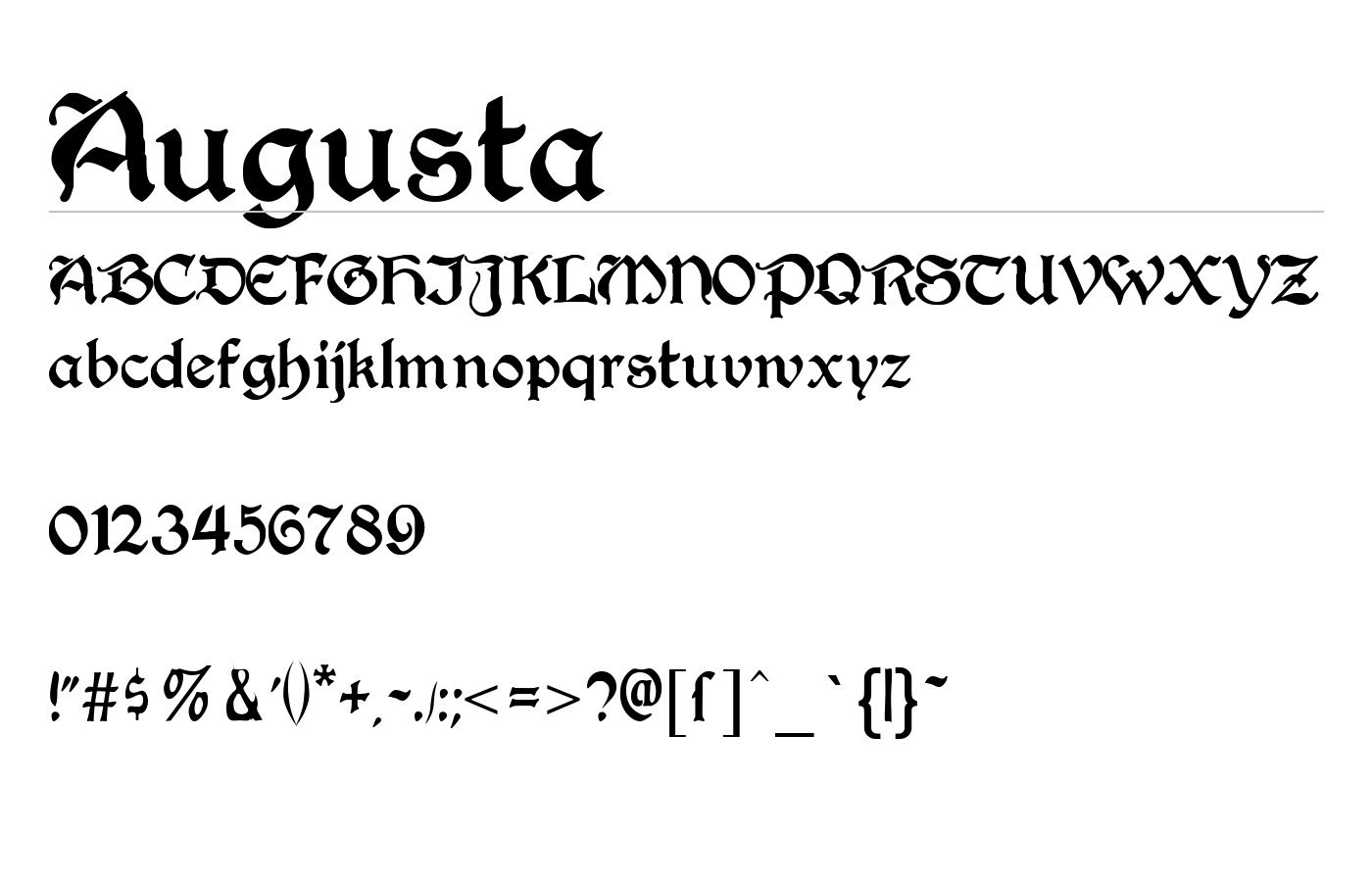
Augusta is a blackletter serif font with strong, bold strokes and sharp, dramatic serifs that evoke a historic, medieval charm. Its high contrast and elaborate letterforms give it a distinctive, formal appearance perfect for use in logos, headlines, and branding that want to communicate tradition, strength, and elegance. This font works especially well for projects in luxury, vintage, or cultural contexts where a majestic and authoritative style is desired.
Augusta Font
About Augusta Font